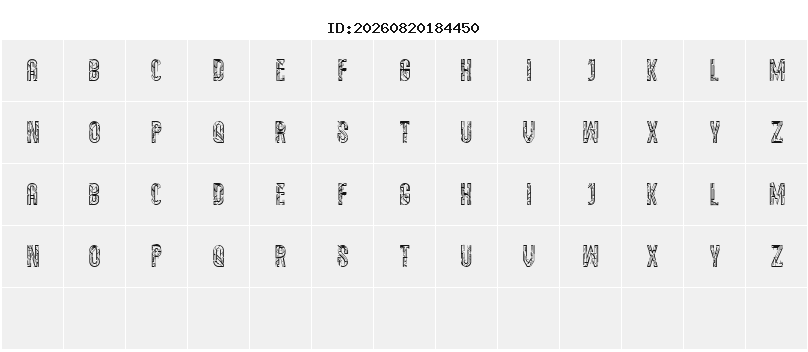
• Font Name: Semravut
• Full Font Name: Semravut Regular
• Manufacturer: Ramz
About Semravut.ttf
Semravut.ttf is a modern, elegant sans-serif font designed for ultimate readability and visual harmony. Perfect for branding, headlines, web design, and print materials.